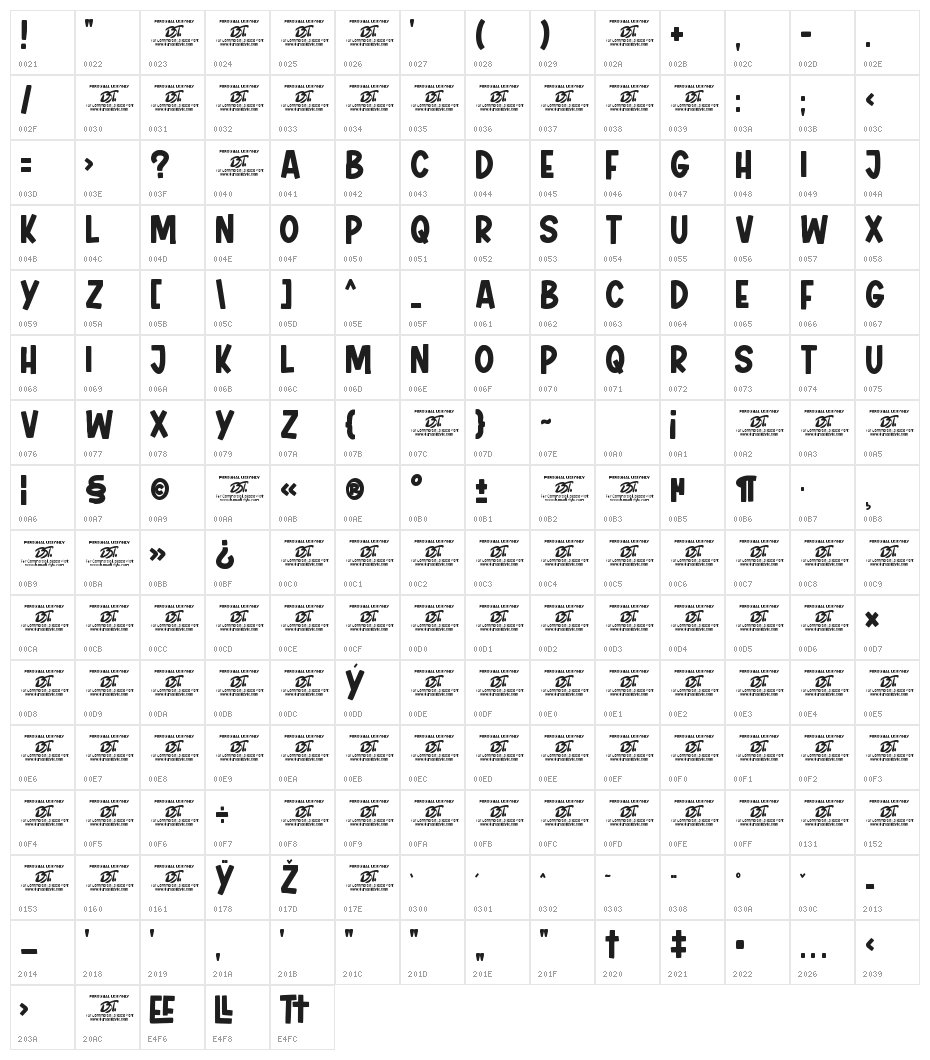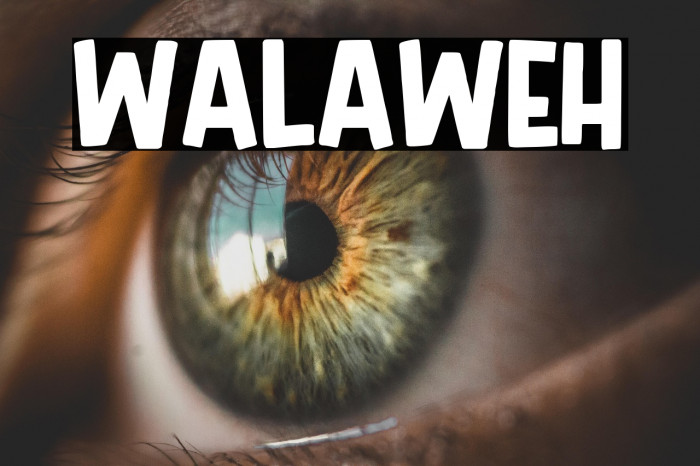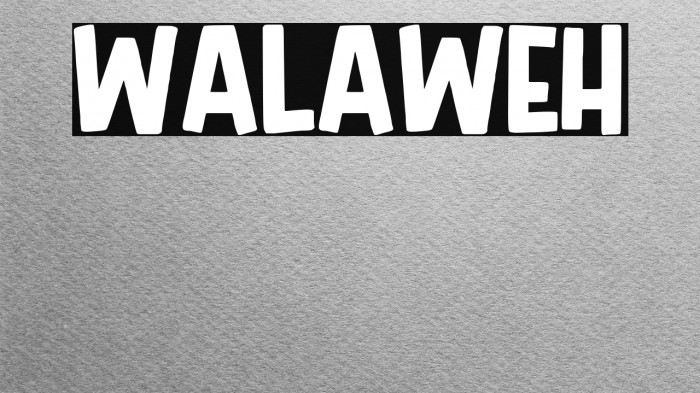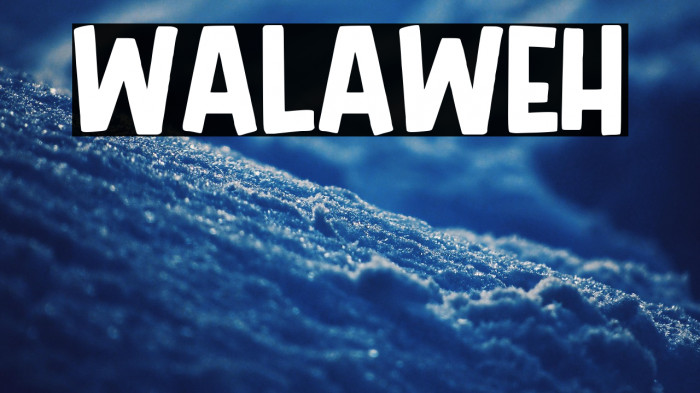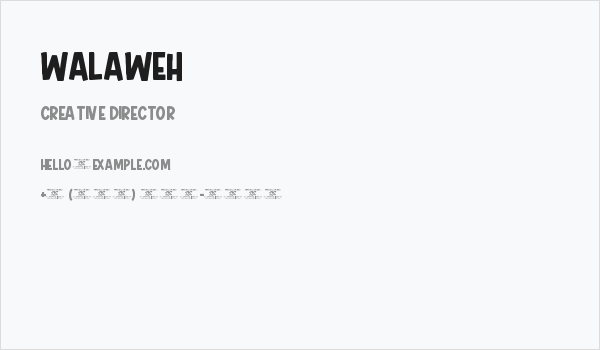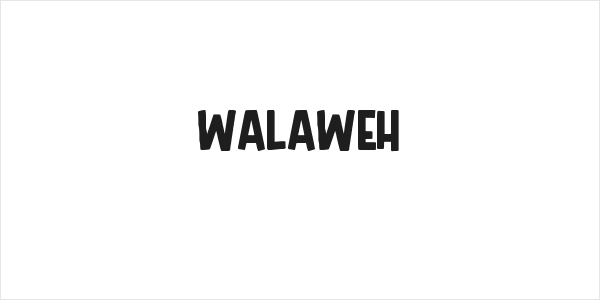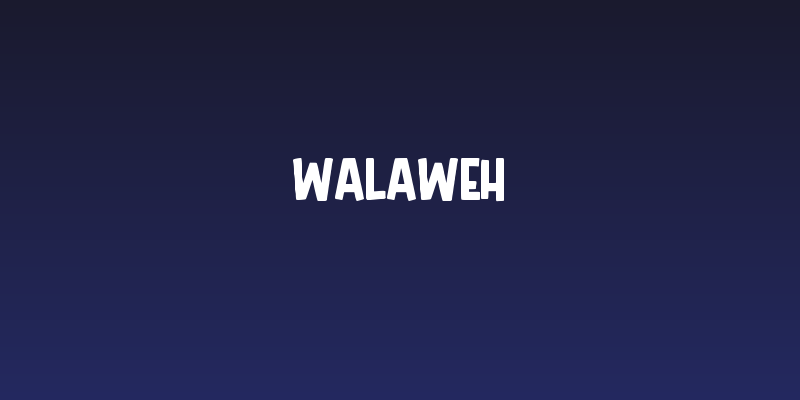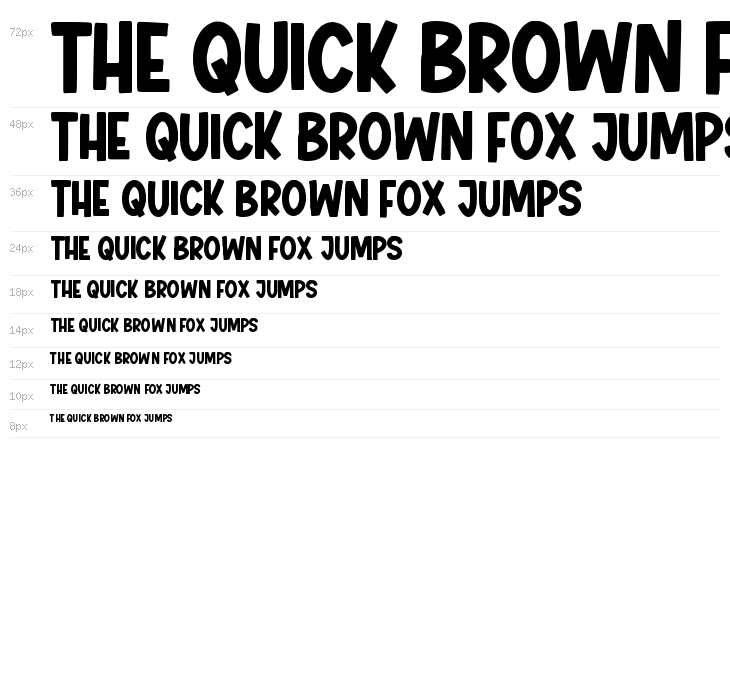
Walaweh Font
| Estilo geral | Playful, Whimsical, Hand-drawn |
| Caso de uso | Headlines, Posters, Invitations |
| Projetos propostos | Ideal for children's books, playful posters, party invitations, and casual branding. |